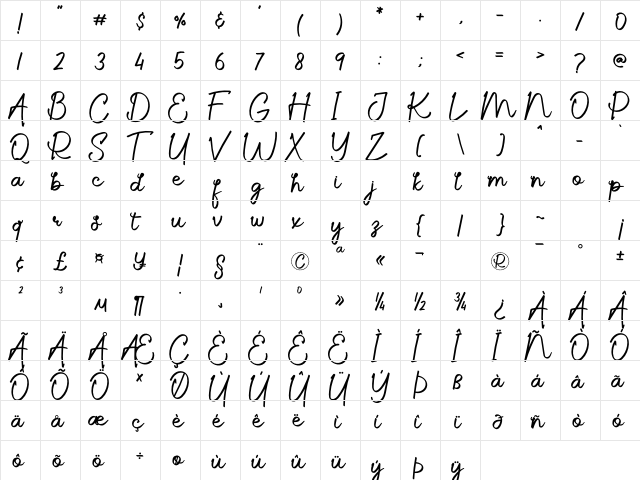
Agatha Salting Regular
| Foundry | Airotype Design |
| Designer | Rofiq Soelta |
Design Context for Agatha Salting Typeface
Agatha Salting is a composed and adaptable typeface that performs quietly and consistently across a wide range of design contexts.